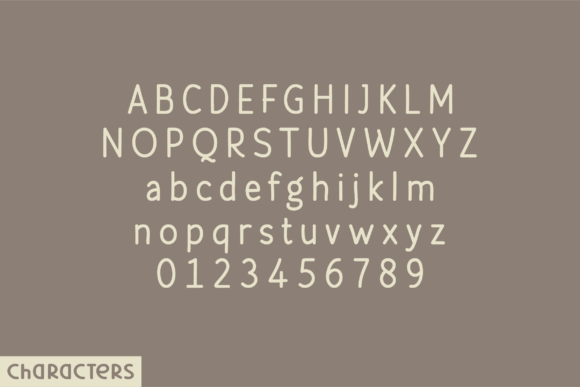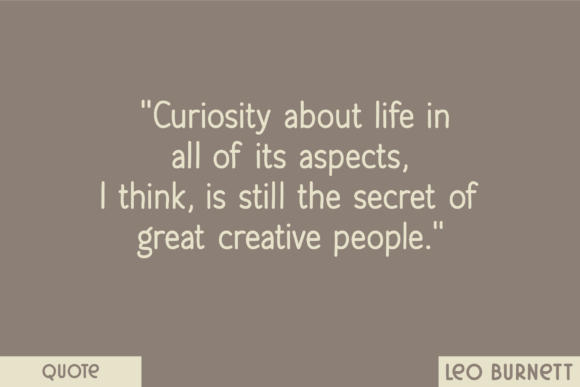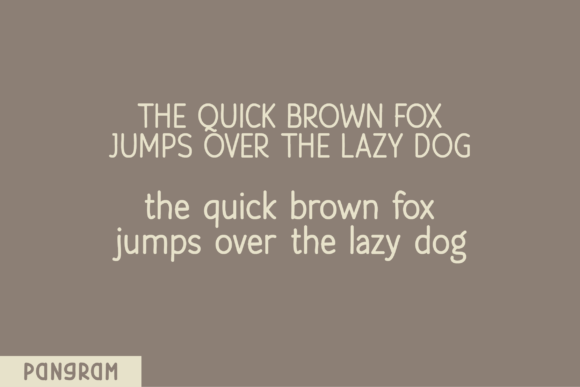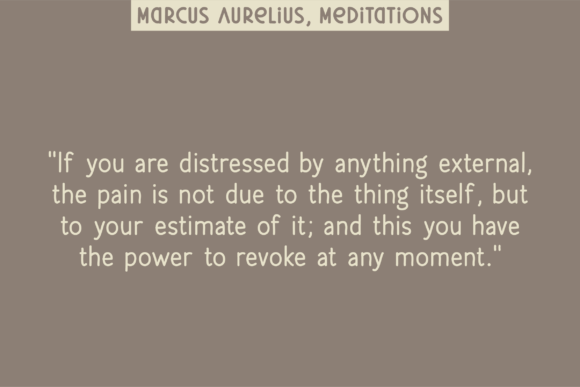
Introduction to Potato Rounds Font
As designers, we’ve all been there – staring at a blank canvas, desperately seeking the perfect font to bring our creative project to life. The search can be daunting, especially when you’re working on a high-quality design that demands a unique and elegant touch. That’s where the Potato Rounds Font comes in – a stunning sans serif font that’s sure to elevate your designs to the next level.
This free download is a game-changer for designers, offering a clean and minimalist vibe that’s perfect for book covers, magazines, social media posts, and more. With its transparent background and high-quality design, the Potato Rounds Font is an invaluable resource for any creative project. Whether you’re a seasoned pro or just starting out, this design resource is sure to inspire and delight.
Key Features of Potato Rounds Font
- Unique, hand-drawn design with a playful, whimsical feel, perfect for creative projects
- Perfect for use in children’s books, greeting cards, and other design projects requiring a fun, playful font
Honest Review: Potato Rounds Font
I recently came across the Potato Rounds Font, and I must say it’s been a pleasant surprise. As a designer, I’m always on the lookout for high-quality fonts that can elevate my creative projects.
What works well: ✨ The Potato Rounds Font has a beautiful, hand-drawn feel that’s perfect for design projects that need a touch of whimsy. The font is available for free download, which is a definite plus. The transparent background also makes it easy to integrate into any design.
- The font is highly customizable, with a wide range of styles and sizes to choose from.
- The transparent background allows for seamless integration into any design.
Limitations: ⚠️ While the Potato Rounds Font is a great addition to any design resource, it may not be suitable for projects that require a more formal or professional tone. Additionally, the font may not be as versatile as some other options.
Overall, I’m impressed with the Potato Rounds Font and would definitely recommend it to designers looking for a unique and creative solution. With its high-quality design and transparent background, it’s a great addition to any design resource.
The Potato Rounds Font is perfect for various creative projects, including social media graphics, blog posts, and marketing materials. You can use the font to create eye-catching headings, titles, and captions that grab the attention of your audience.